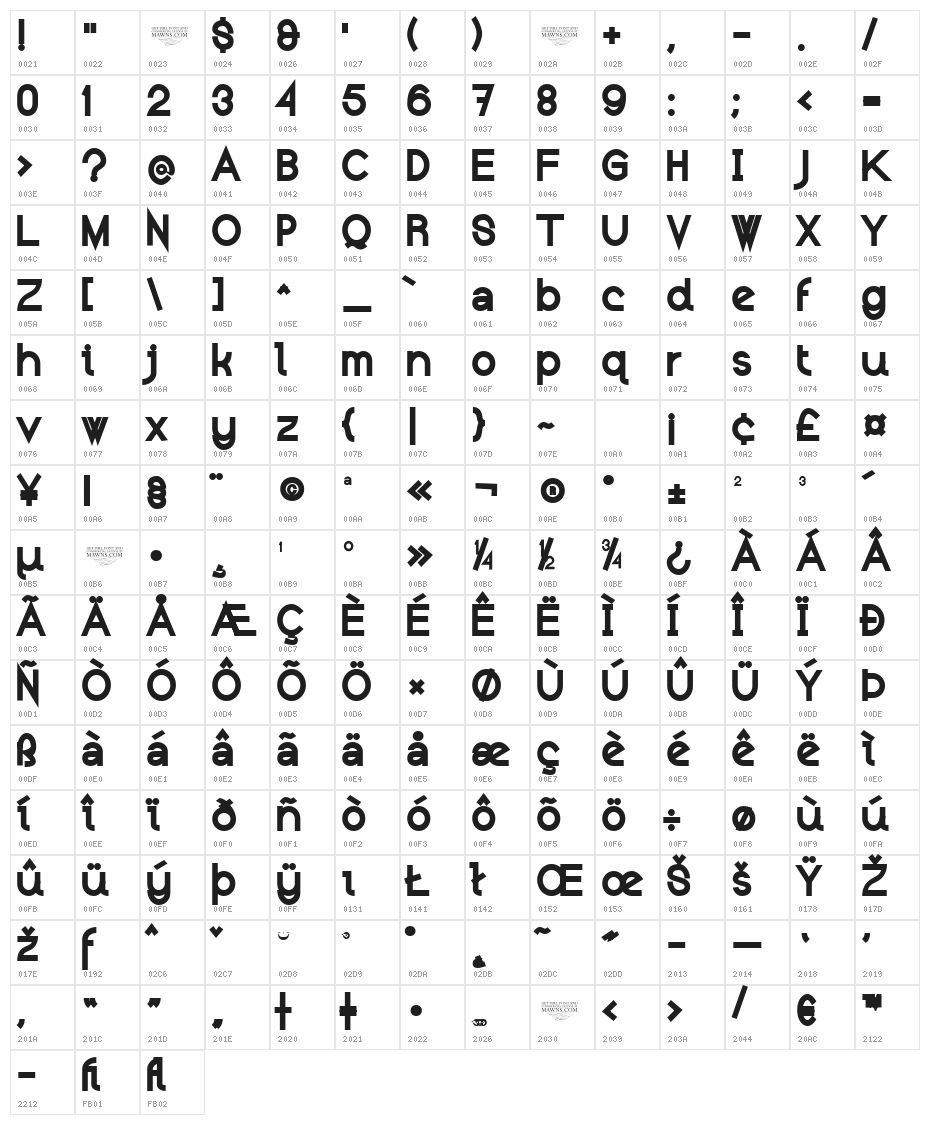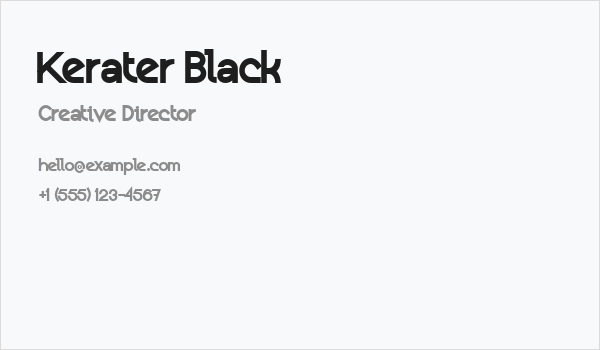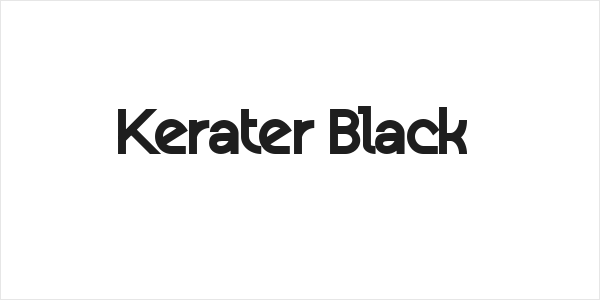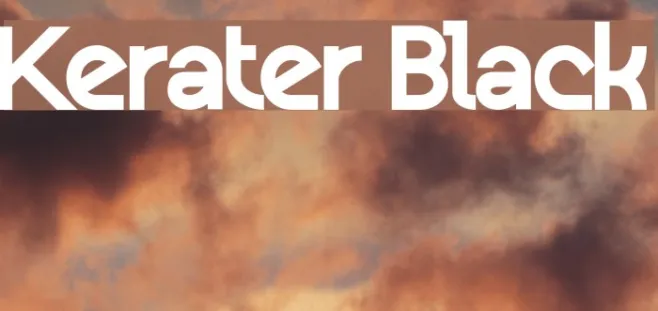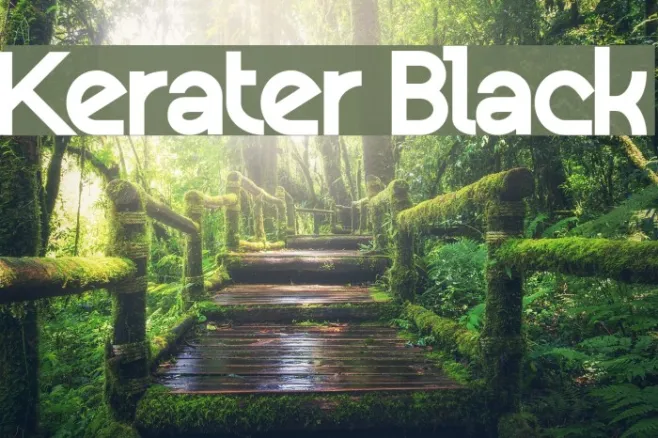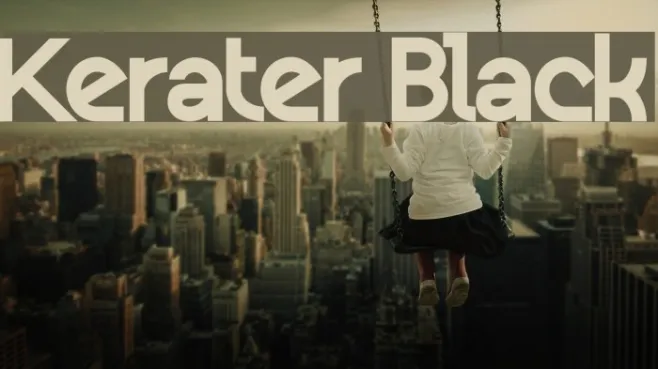
Kerater Black Font
Kerater Black Description
This font features a bold and geometric design, characterized by its thick, uniform strokes and modern aesthetic. The uppercase letters are strong and commanding, with sharp angles and a consistent weight throughout. The lowercase letters maintain the same boldness, offering a cohesive look across different text cases. Numbers are equally robust, ensuring clarity and impact. Special characters are designed with the same attention to detail, making them stand out while remaining harmonious with the rest of the font. This style is perfect for making a statement, with its clean lines and contemporary feel.
| Proposed Projects | Ideal for branding, headlines, posters, and any project requiring a strong visual impact. |